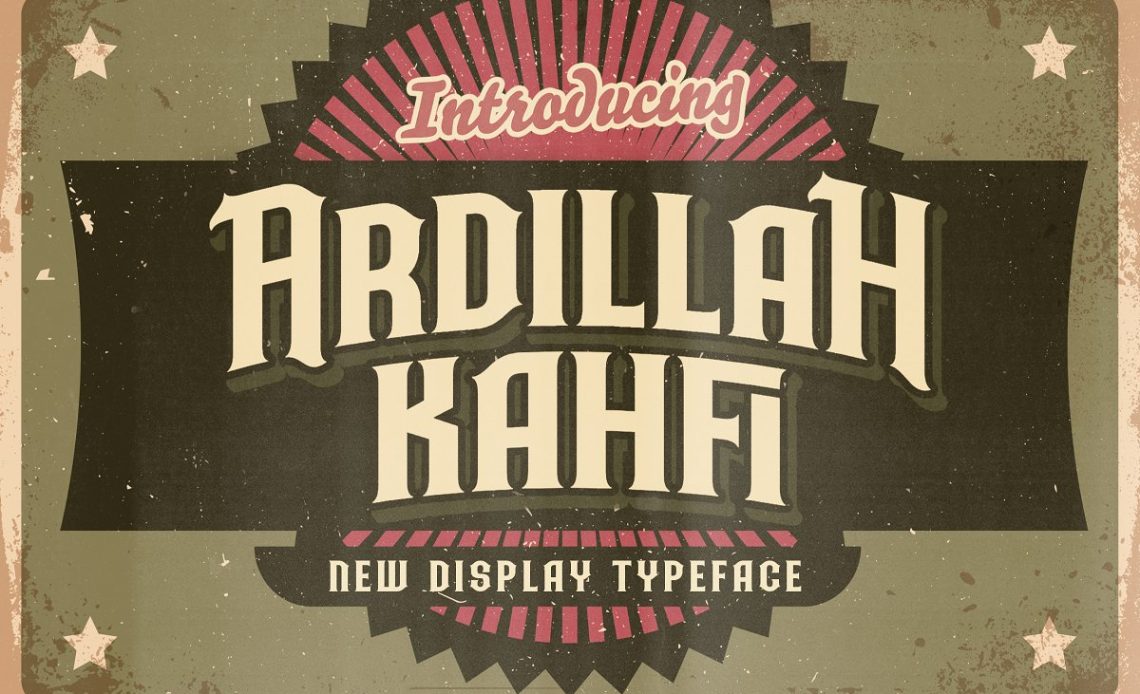
Introducing Ardilah Kafi - Victorian Decorative Font, the perfect choice for modern logos and stunning designs. This unique and elegant font, created by Virgiawan Listanto, will capture your imagination and transport you to a bygone era.
Ardilah Kafi is inspired by vintage tattoo design, giving it a playfully nostalgic feel that is sure to captivate your audience. Its incredible vintage aesthetic will add a touch of sophistication and charm to any project.
With its romantic and bold formation, Ardilah Kafi stands out from the crowd, making it the ideal font for those seeking to make a lasting impression. Its attention to detail is second to none, ensuring that your designs will always look polished and professional.
Featuring a wide range of features, including alternates, ligatures, and both uppercase and lowercase letters, Ardilah Kafi offers endless possibilities for creativity. It also supports multilingual characters, making it suitable for a global audience.
Not only is Ardilah Kafi visually stunning, but it is also incredibly versatile. Whether you're working on a modern logo, a classic design, or anything in between, this font will elevate your project to new heights.